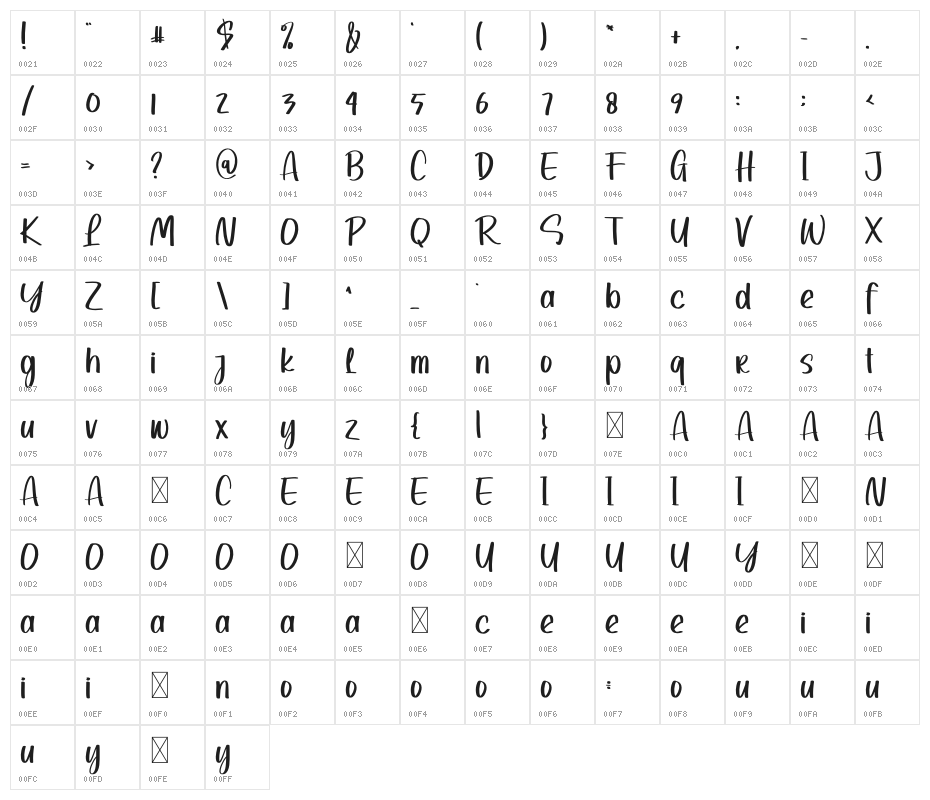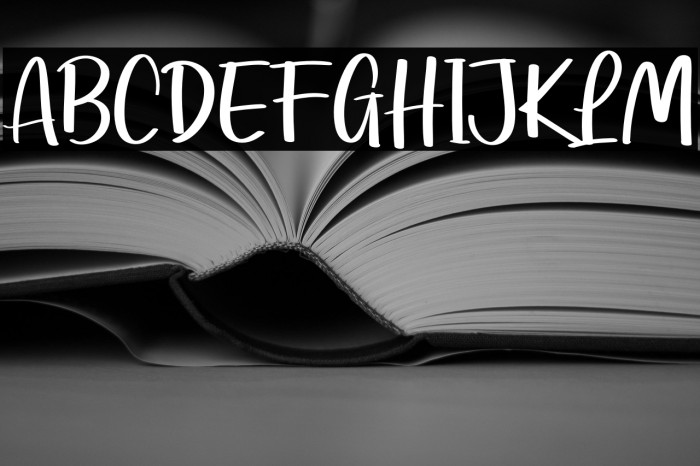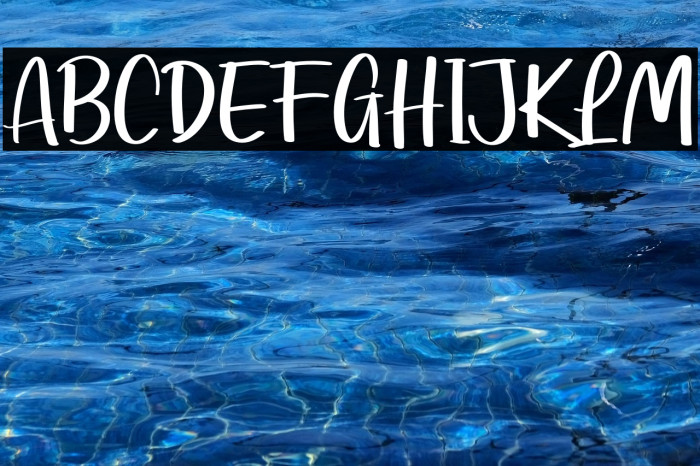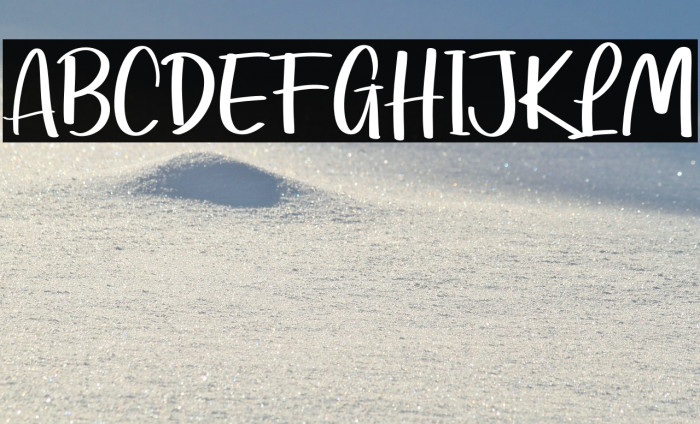
Daily Retro Font
This font exudes a playful and retro vibe, characterized by its bold and flowing script style. The letters are crafted with a hand-drawn aesthetic, giving them a casual and approachable feel. The uppercase letters are tall and slightly narrow, while the lowercase letters maintain a consistent height, adding to the font's uniformity. The numbers and special characters are designed to match the whimsical style of the alphabet, ensuring a cohesive look across all text. The strokes are thick and consistent, providing a strong visual impact. This font is perfect for projects that require a touch of nostalgia and personality.
| Overall Style | Retro |
| Use Case | Logos, Headlines, Posters |
| Proposed Projects | Ideal for vintage-themed posters, playful branding, greeting cards, and social media graphics. |